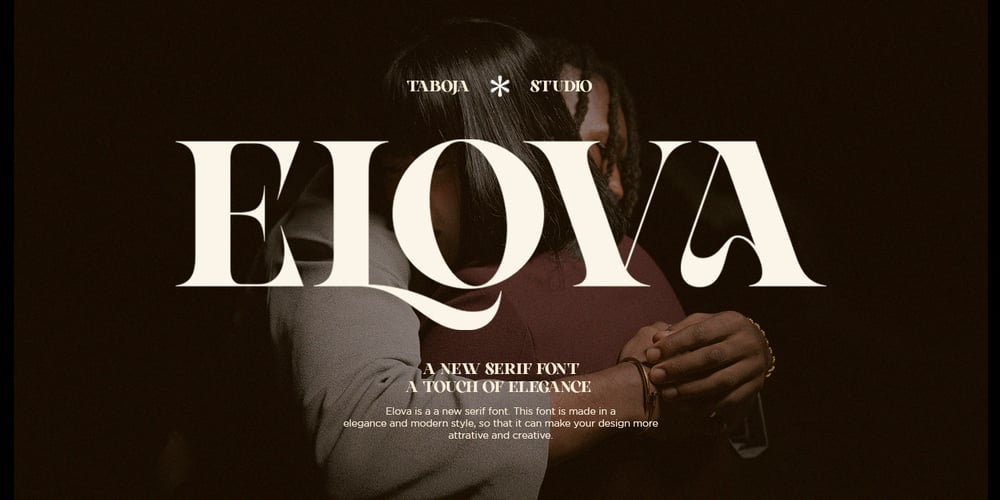
Elova Elegant Serif Font Family was designed by Yusilo Oktaprima Ardani and published by Taboja Studio. Elova Elegant Serif contains 1 styles and family package options. Elova fonts exude authority and clarity with their robust strokes and prominent serifs. They command attention effortlessly in prominent titles, delivering impactful statements, and enhancing graphic designs with a bold and dependable presence.Whether used in print or digital media, serif bold fonts convey a sense of strength and reliability, making them an ideal choice for projects requiring a bold and commanding aesthetic.Elova Font Features: Regular Uppercase And Lowercase Alternates And Ligatures Numerals & Punctuation Accented characters Multilingual Support Unicode PUA Encoded We highly recommend using a program that supports OpenType features and Glyphs panels such as Adobe Illustrator, Adobe Photoshop CC, Adobe Indesign, or CorelDraw, so you can see and access all Glyph variations.While using this product, if you encounter any problem or spot something we may have missed, please don’t hesitate to drop us a message. We’d love to hear your feedbacks in order to further fine-tune our products.Stay creative and have a wonderful day.